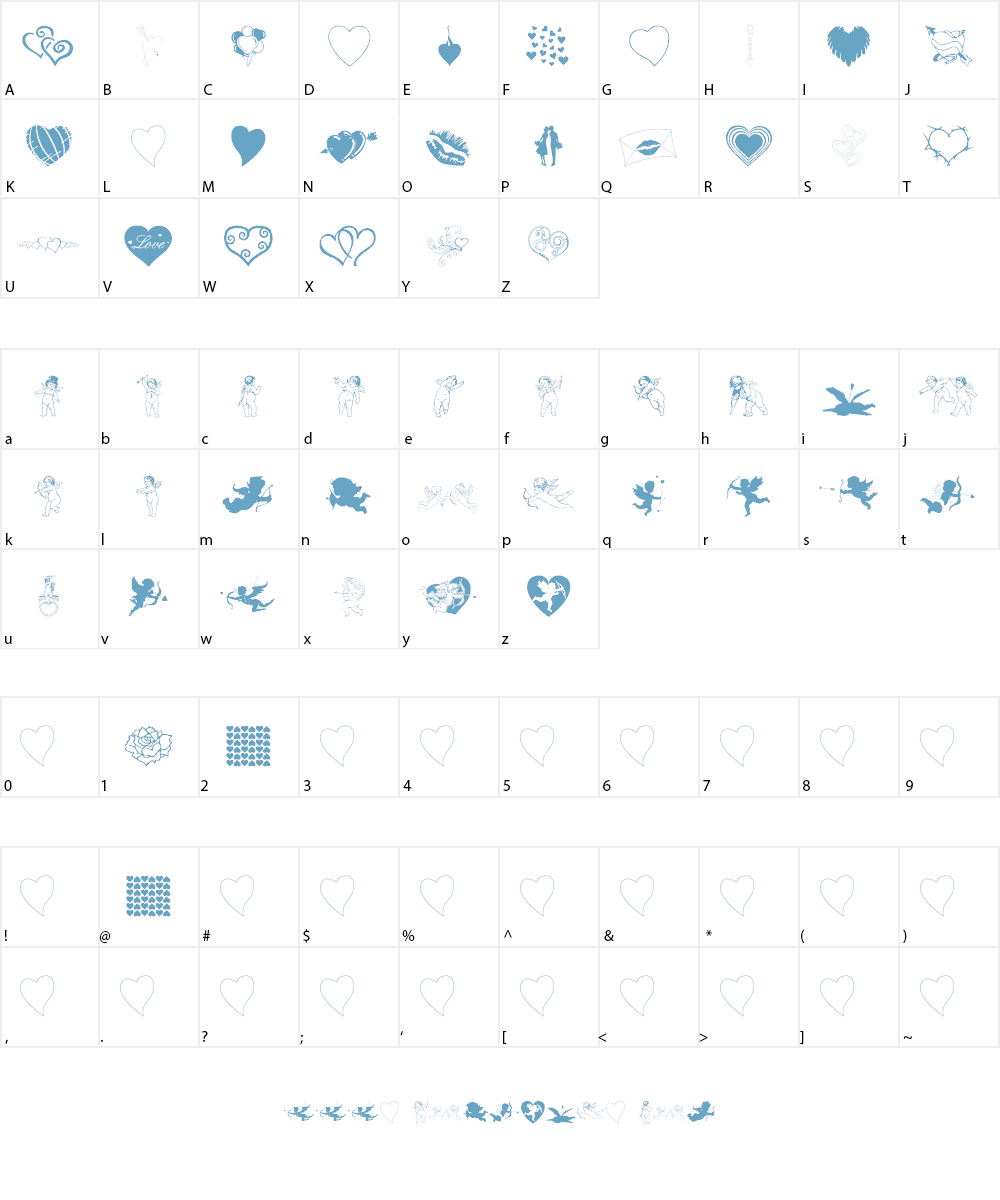
This is just a dingbat I put together for fun, basically building a font around one dingbat image I made and liked. Half of the font is cupid and the other half hearts. Enjoy.